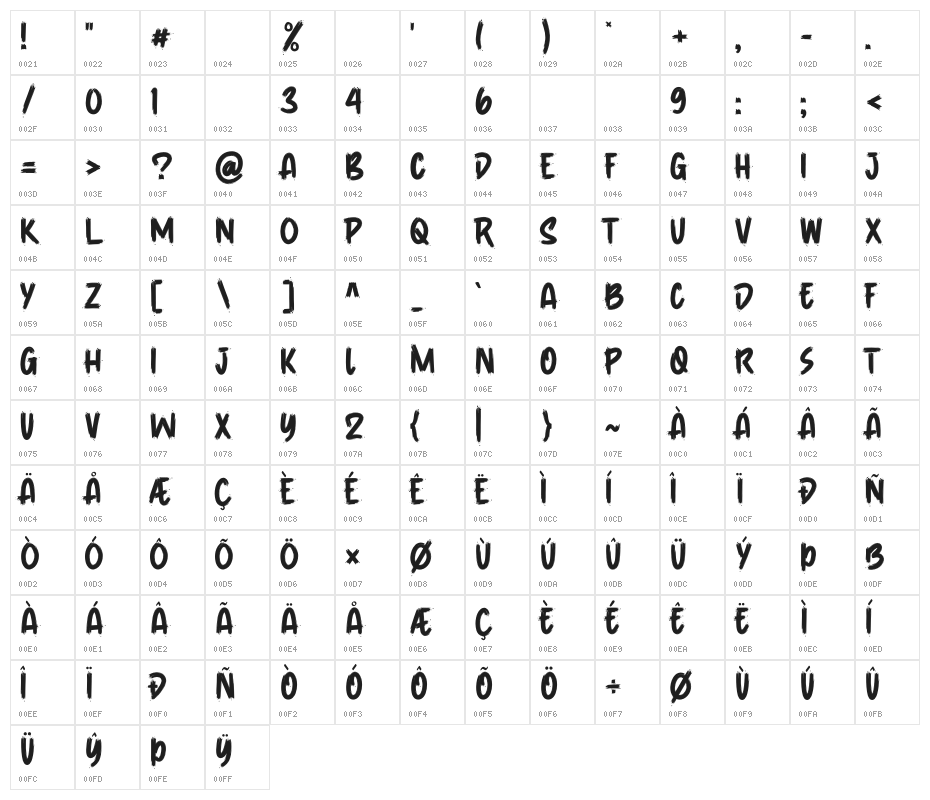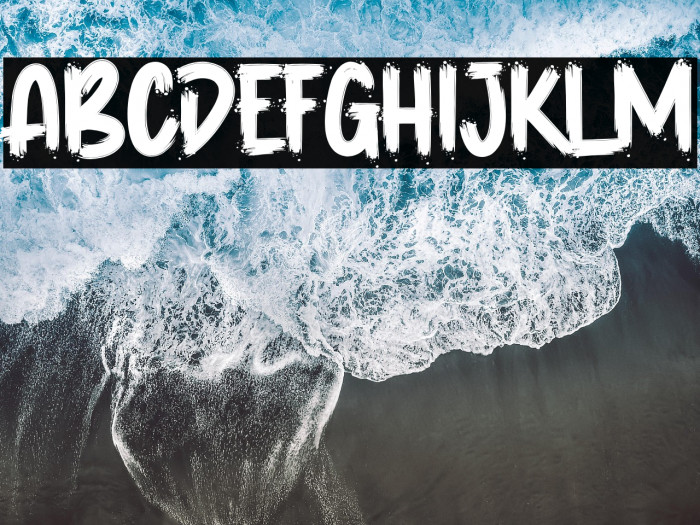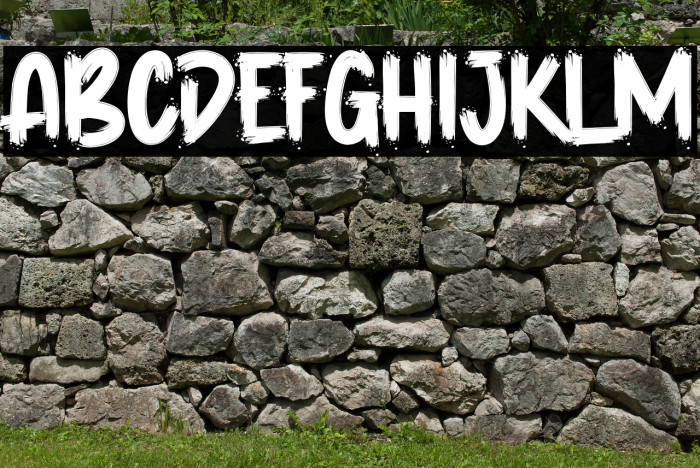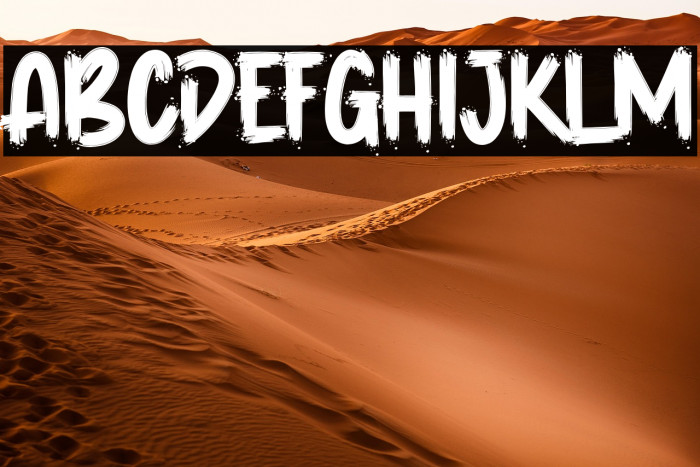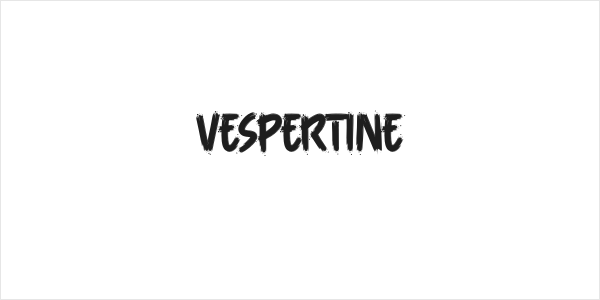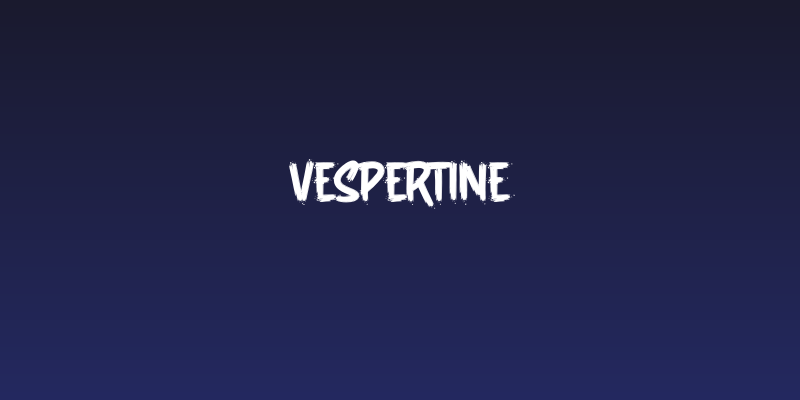
Vespertine Font
Vespertine Description
This font features a bold and expressive style with a hand-painted appearance. The strokes are thick and dynamic, giving each character a sense of movement and energy. The edges are slightly rough, adding a textured, artistic feel that resembles brush strokes. This font is highly legible while maintaining a unique, creative flair, making it suitable for eye-catching designs. The uppercase and lowercase letters are consistent in style, with numbers and special characters complementing the overall aesthetic.
Overall StyleArtistic, Expressive
Proposed ProjectsIdeal for posters, album covers, branding, and any project requiring a bold, artistic touch.